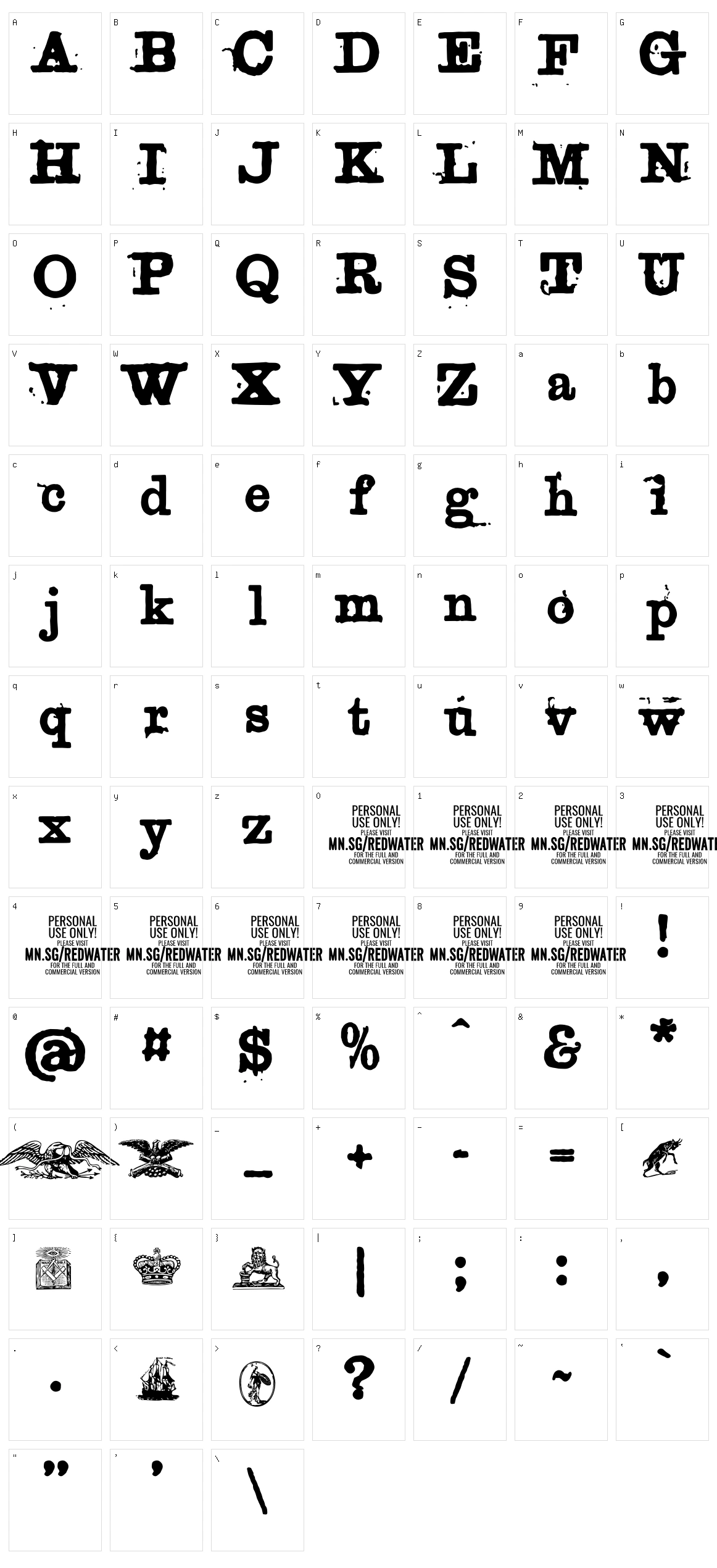
Redwater Banker is a Western slab-serif typeface.
A historical frontier lettering, this font is rough and eroded, with a tough and confident attitude.
Redwater Banker is a serif font with a strong cowboy personality, reminiscent of a bank or saloon in the Old West.
Use the parenthesis characters ( ) [ ] { } to make patriotic symbols like eagles and crowns.
Redwater Banker comes in three styles:
The normal Regular, the slanted Italic, plus the bonus Corner font for a decorative edge.
The font is built with advanced OpenType functionality and has a guaranteed top-notch quality, containing stylistic and contextual alternates, ligatures and more features; all to give you full control and customizability.
It has extensive lingual support, covering all Latin-based languages, from North Europe to South Africa, from America to South-East Asia.
It contains all characters and symbols you'll ever need, including all punctuation and numbers.